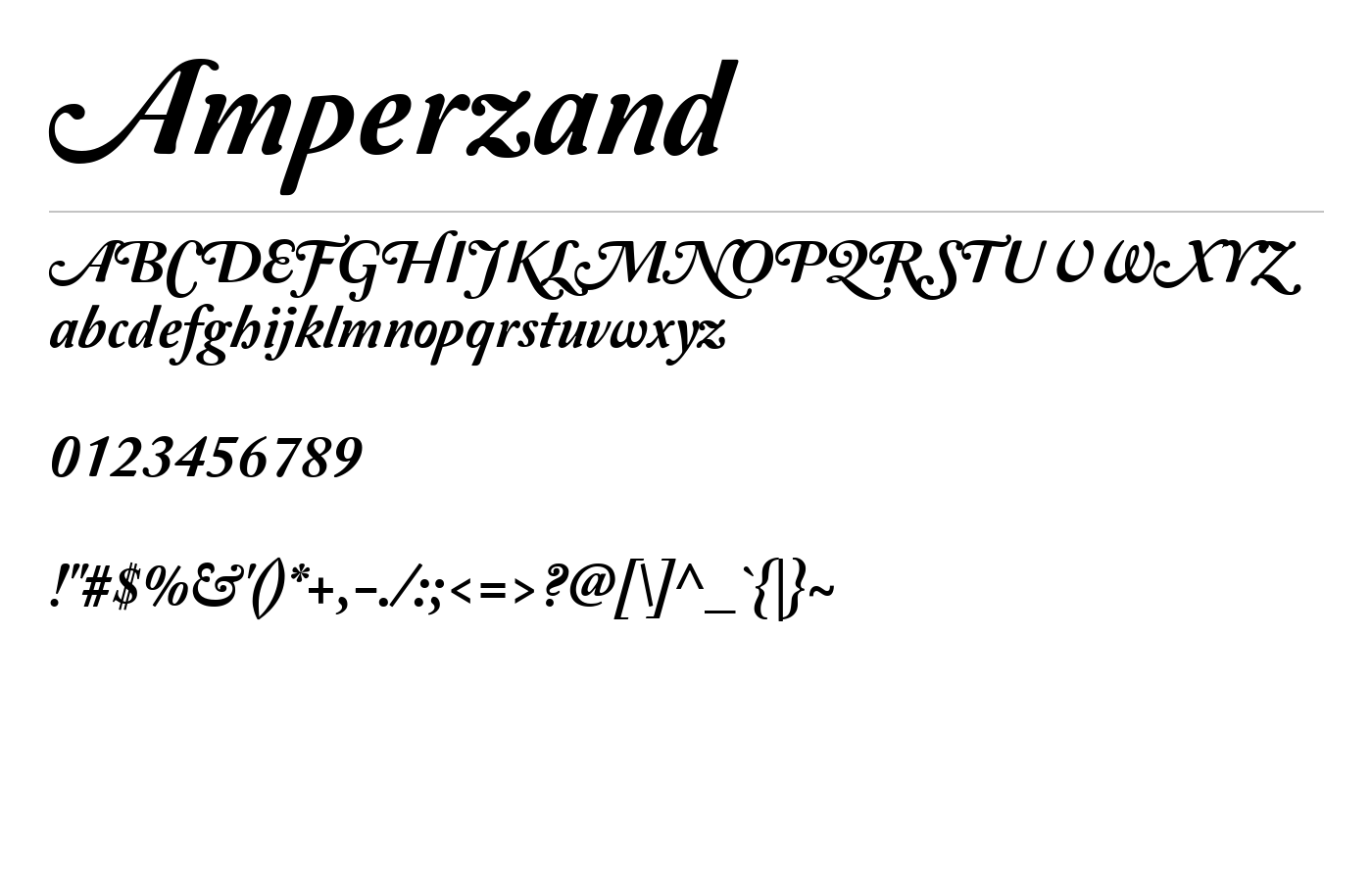
Amperzand is an elegant serif font with a classic, calligraphic touch that combines smooth, flowing strokes with a moderate contrast between thick and thin lines. Its slightly condensed letterforms and unique decorative details give it a refined, sophisticated personality, making it an ideal choice for luxury branding, invitations, and editorial headlines where a timeless and graceful look is desired. This font adds a sense of charm and formality while maintaining readability and style.
Amperzand Font